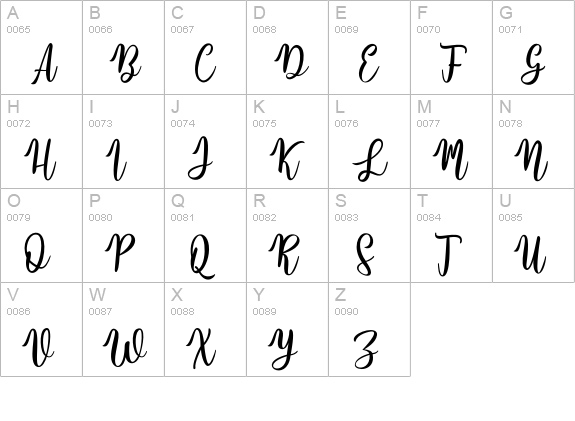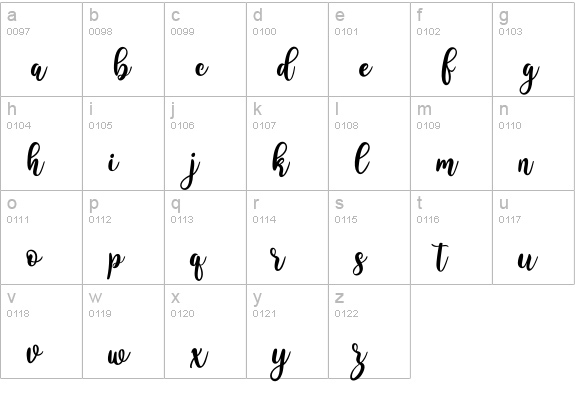
hello Hamburg Font Details
hello Hamburg is a free for personal use font in the Script category, designed by jackgridden. It has been downloaded 16 times and is available for Windows, Mac and Linux.
Introducing the captivating and stylish Hello Hamburg font, a versatile typeface that exudes modern elegance and sophistication. This unique font features sleek lines and contemporary design elements that make it perfect for a wide range of projects, from branding to advertising to editorial design.
With its clean and polished appearance, Hello Hamburg is sure to make a statement and elevate any project to the next level. Whether you are designing a logo, creating a poster, or working on a website, this font is a fantastic choice that will add a touch of class and professionalism.